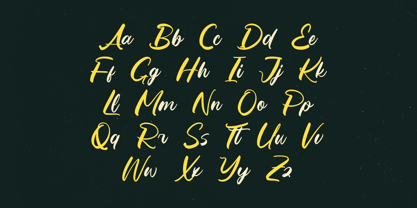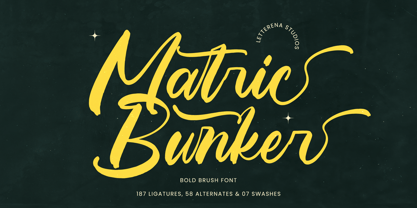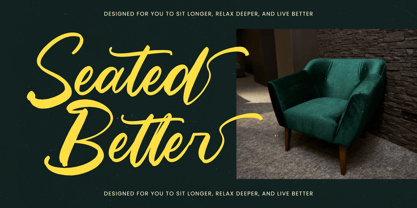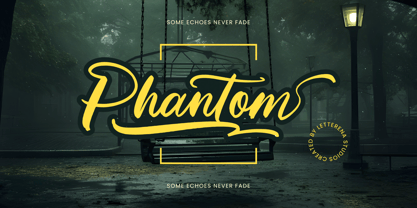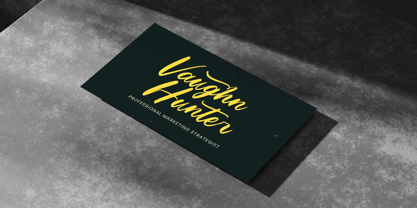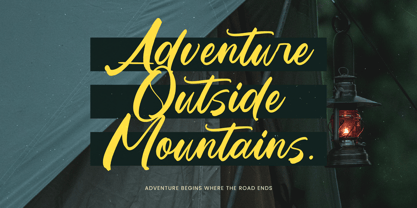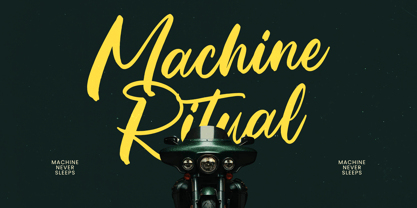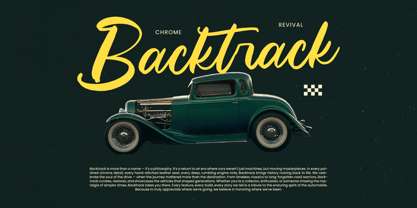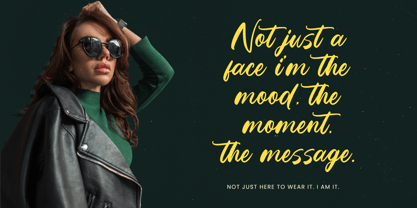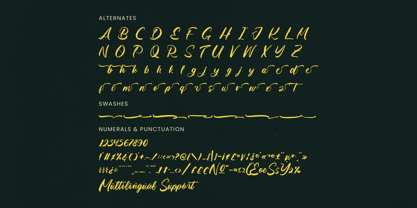
Matric Bunker
The Matric Bunker Font Family was designed by Heru Utama Putra and published by Letterena Studios. Matric Bunker contains 2 styles and family package options.
Matric Bunker – Bold Brush Font , from Letterena, is a Luxury Script font, suitable for any projects such as: logos, branding projects, homeware designs, product packaging, mugs, quotes, posters, shopping bags, t-shirts, book covers, name card, invitation cards, greeting cards, label, photography, watermark, special events, and all your other luxury and beautiful projects that need a Luxury Script taste.